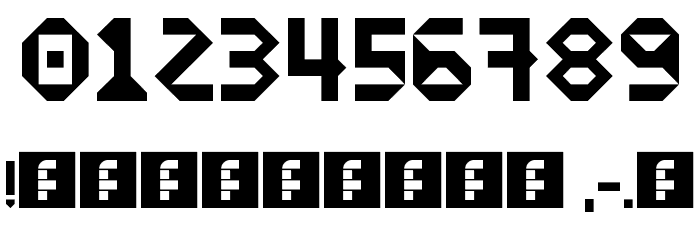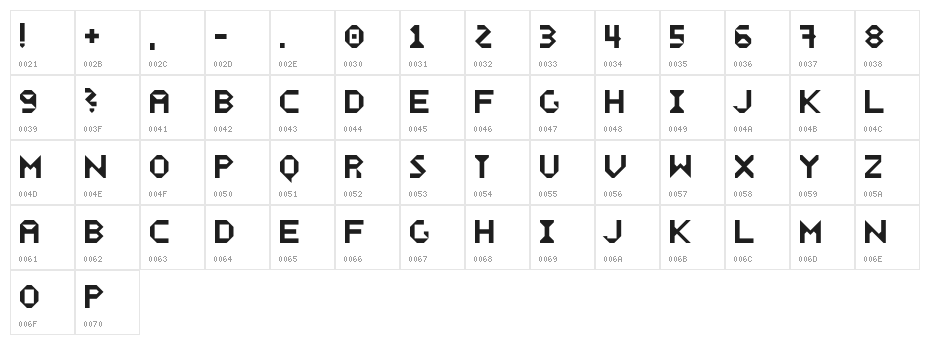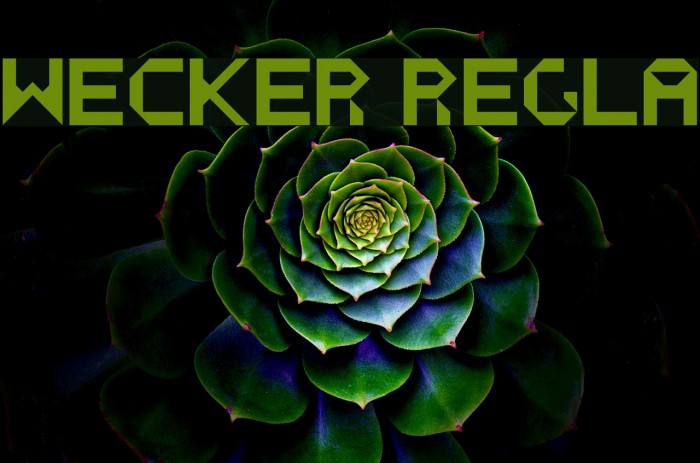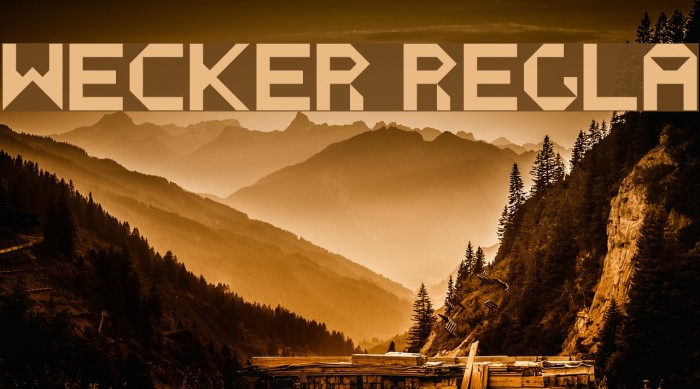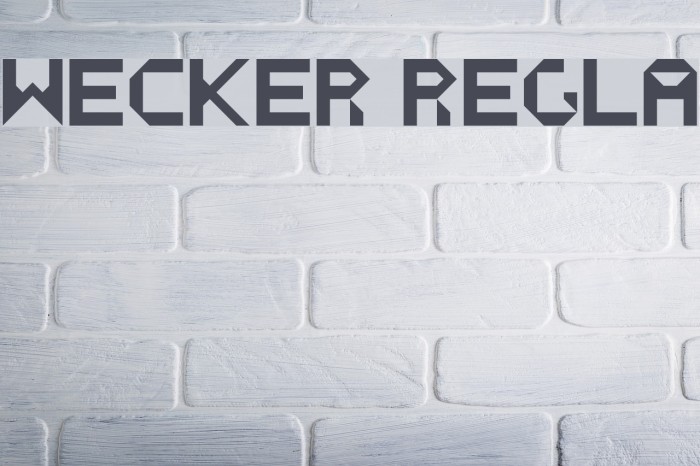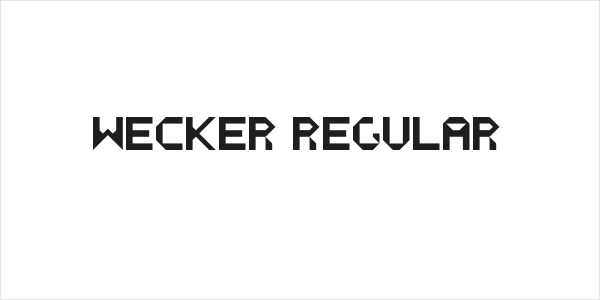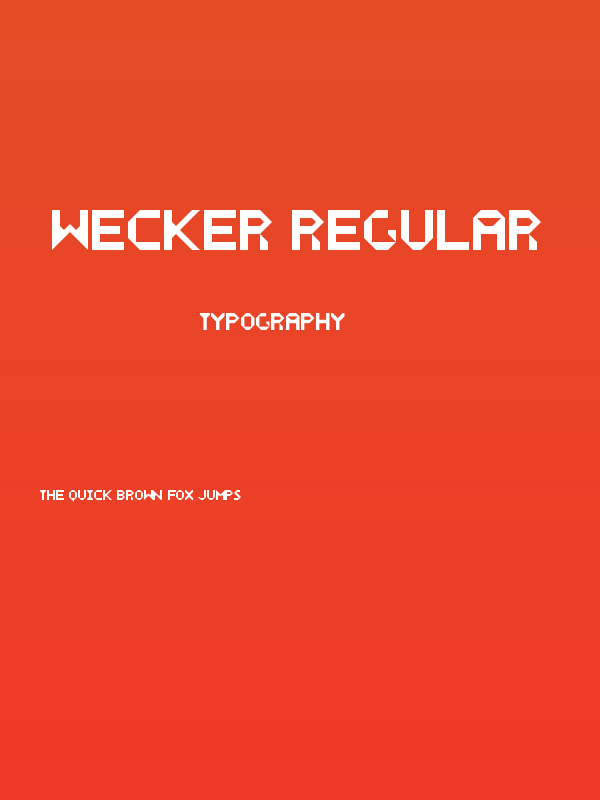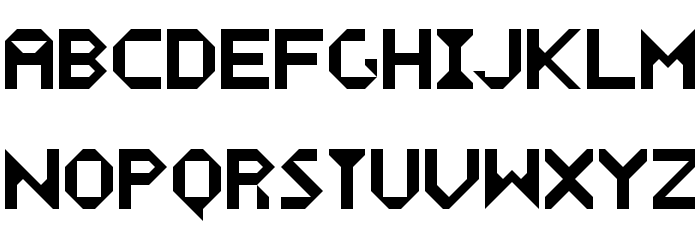
WECKER Regular Font
WECKER Regular Description
This font features a bold, geometric design with sharp angles and a futuristic aesthetic. The characters are constructed with a consistent thickness, creating a uniform appearance. The uppercase letters have a distinct, blocky style, while the lowercase letters maintain the same geometric integrity. Numbers and special characters follow the same design principles, ensuring a cohesive look across all elements. The font's unique style makes it stand out, ideal for projects that require a modern and edgy feel.
| Proposed Projects | Ideal for sci-fi themed projects, video game titles, posters, and branding that requires a modern, standout look. |